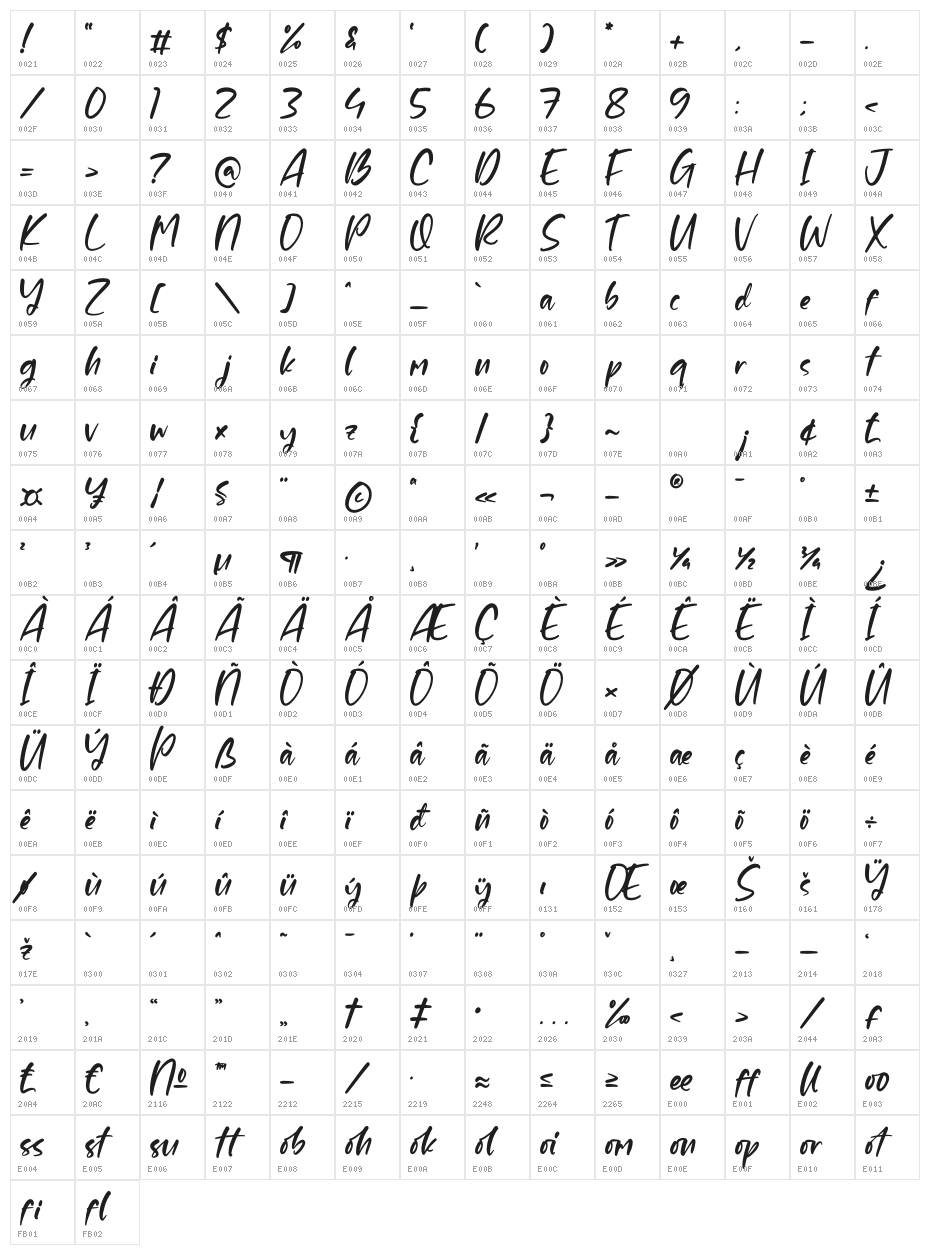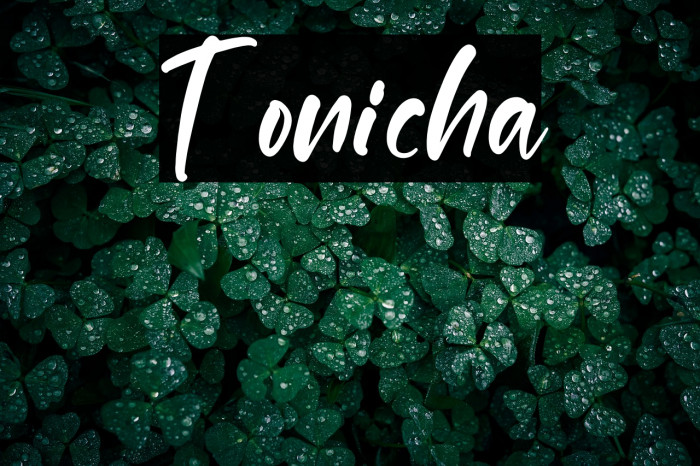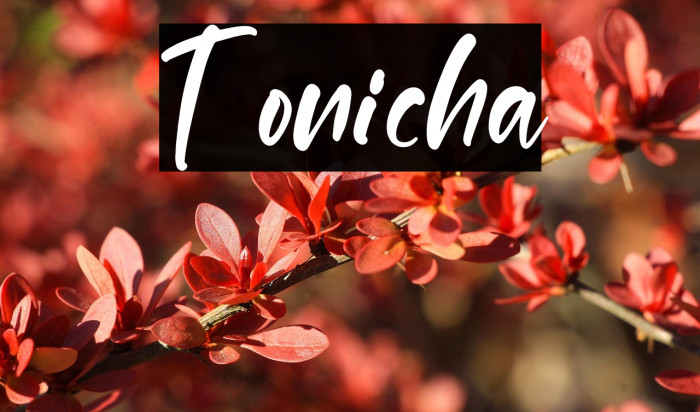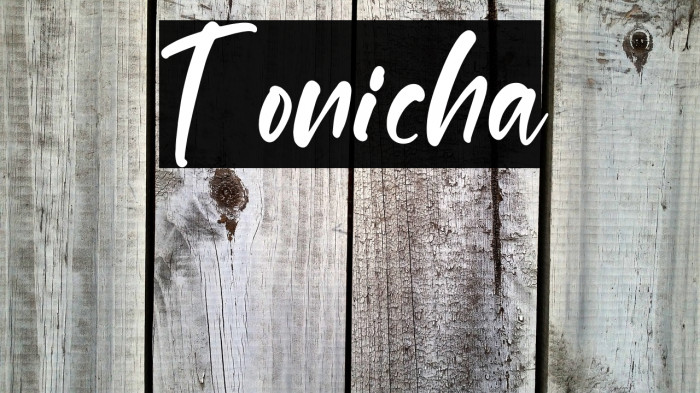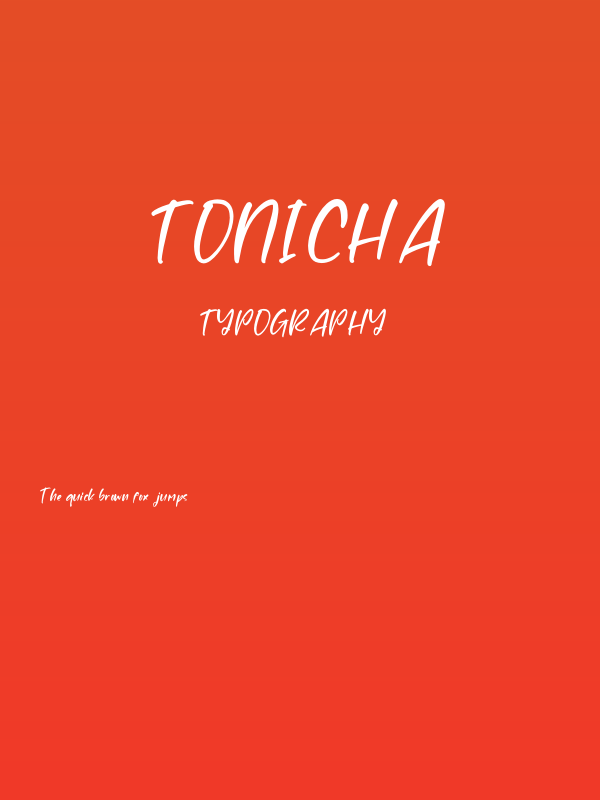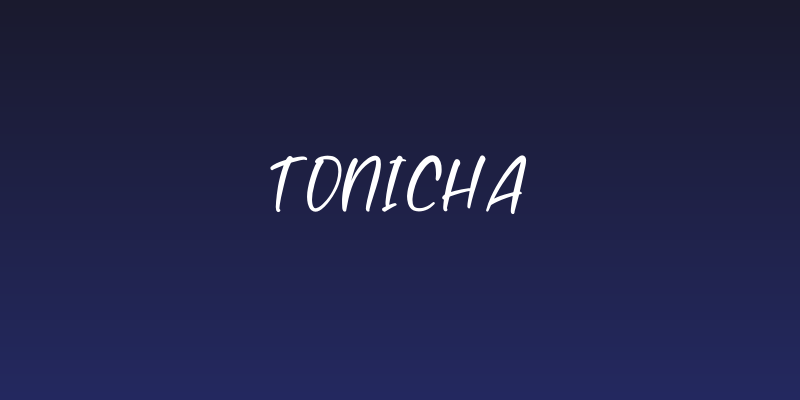
Tonicha Font
Tonicha Description
A casual, handwritten script font with a smooth, flowing style and a personal touch.
| Overall Style | Casual, Personal |
| Proposed Projects | Greeting cards, invitations, personal branding. |